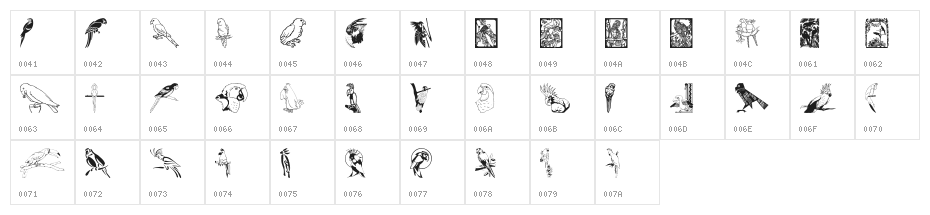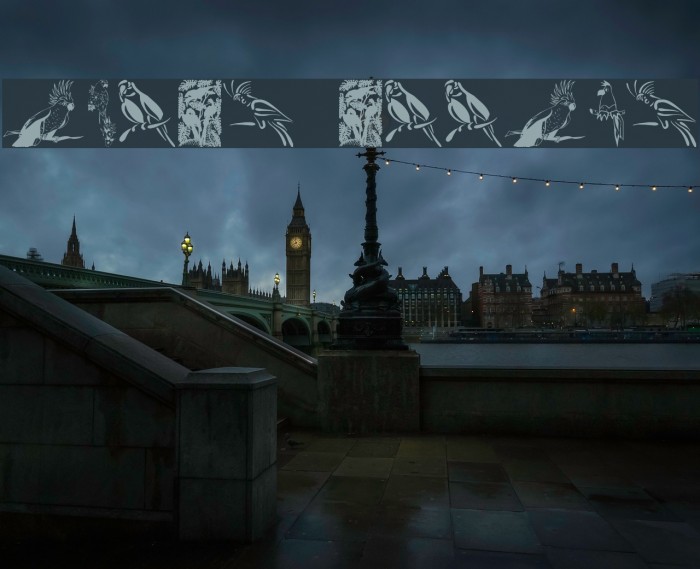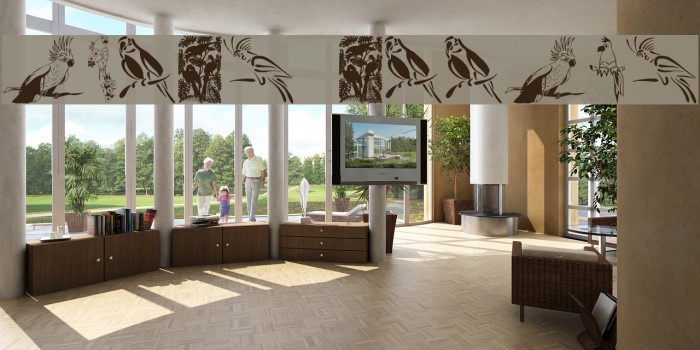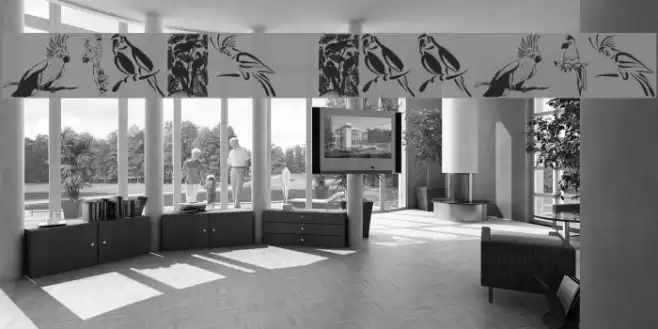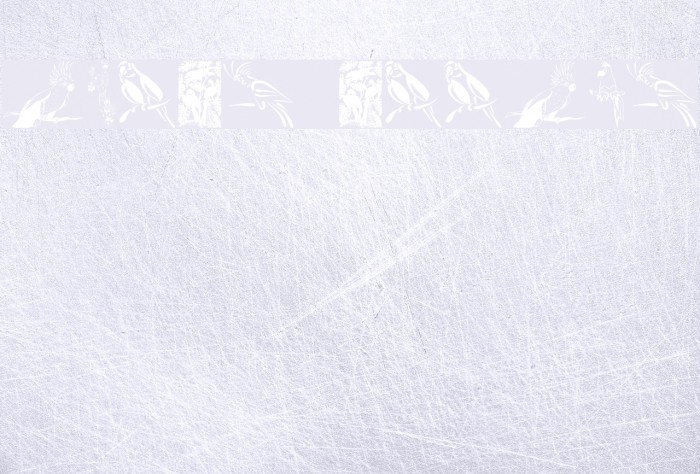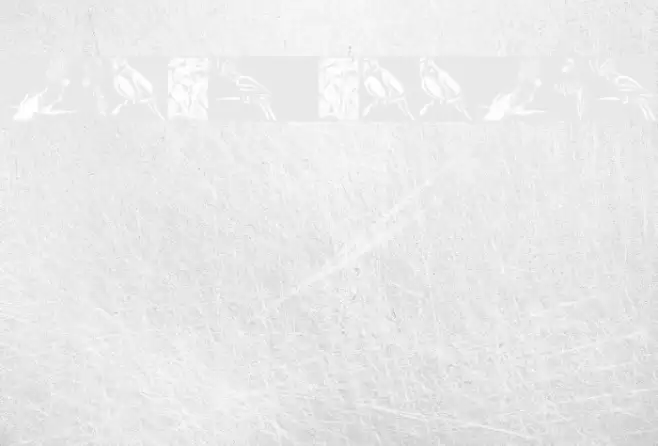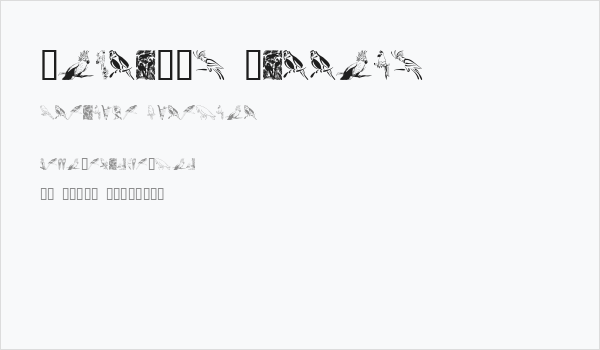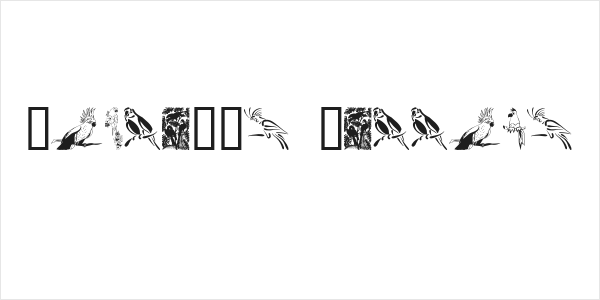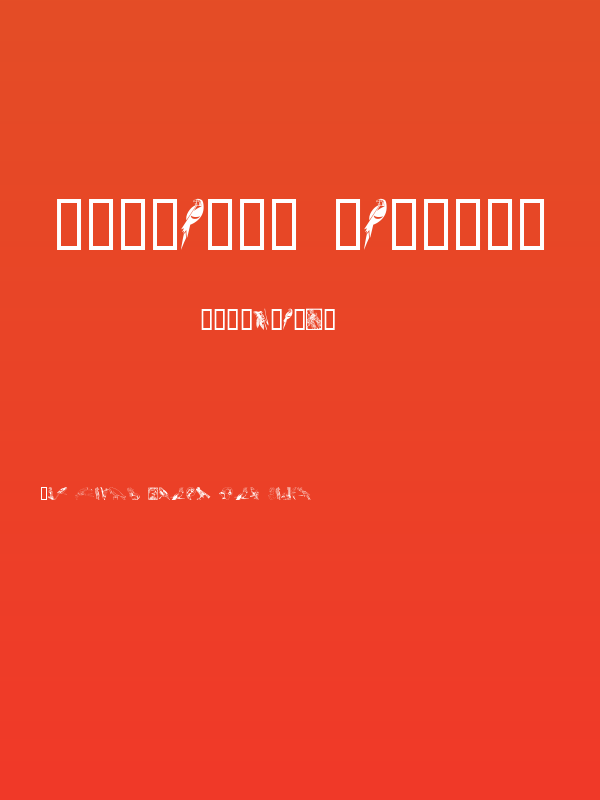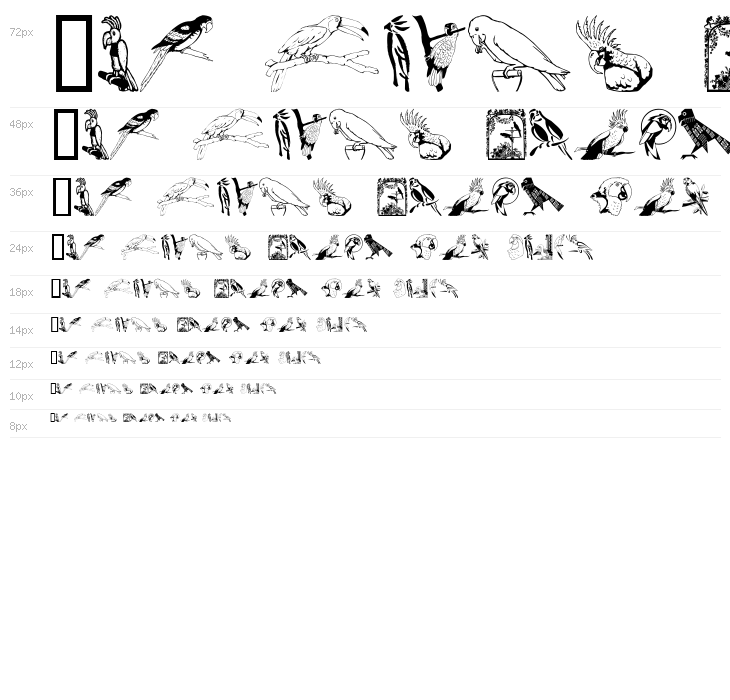
Moyra's Parrots Font
Moyra's Parrots Description
This is not a traditional font but rather a collection of decorative illustrations featuring various parrot designs. Each character is represented by a unique parrot illustration, showcasing different poses and styles. The designs are intricate and detailed, capturing the essence of these vibrant birds. The illustrations vary in complexity, with some featuring simple outlines and others incorporating more detailed shading and textures. This set is more suited for decorative purposes rather than standard text representation.
| Use Case | Logos, Decorative headings, Art projects |
| Proposed Projects | Ideal for creative projects such as greeting cards, posters, or any design work that requires a tropical or exotic theme. It can also be used in educational materials about birds or nature. |